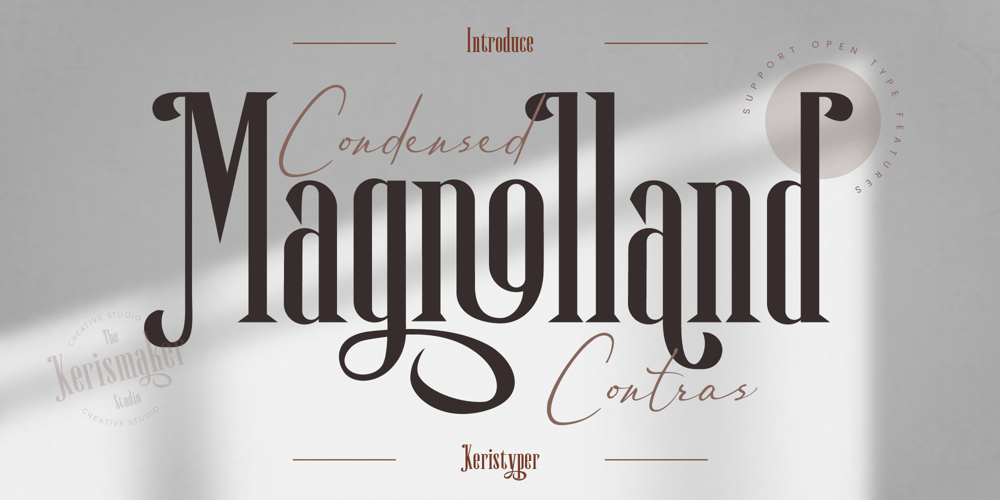
Magnolland Font Family was designed by Tezar Tantular and published by Keristyper Studio. Magnolland contains 1 styles and family package options. Magnolland is an elegantly condensed serif with an eye-catching shape for every typography combination design. This font is good for logo design, Social media, Movie Titles, Books Titles, short text even long text letters, and good for your secondary text font with the script, sans, or serif.Featured: Standard Uppercase & Lowercase Numeral & Punctuation Multilingual : ä ö ü Ä Ö Ü ß ¿ ¡ Alternate & Ligature PUA encoded We recommend programs that support the OpenType feature and the Glyphs panel such as Adobe applications or Corel Draw. so you can use all the variations of the glyphs.Hope you enjoy our fonts!